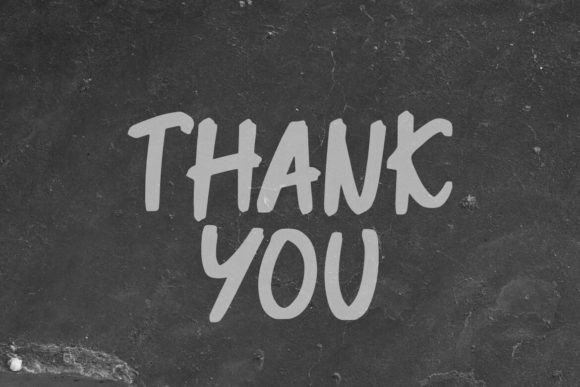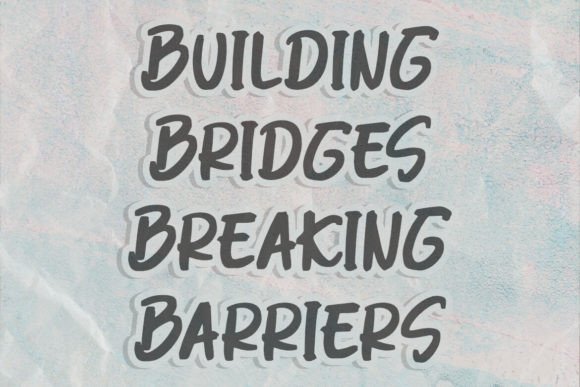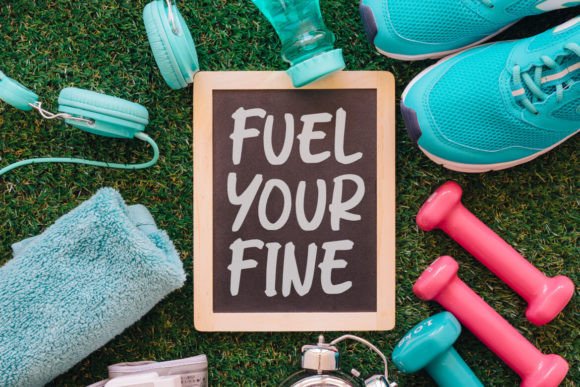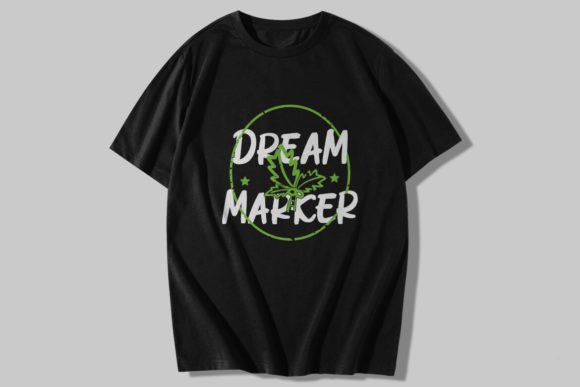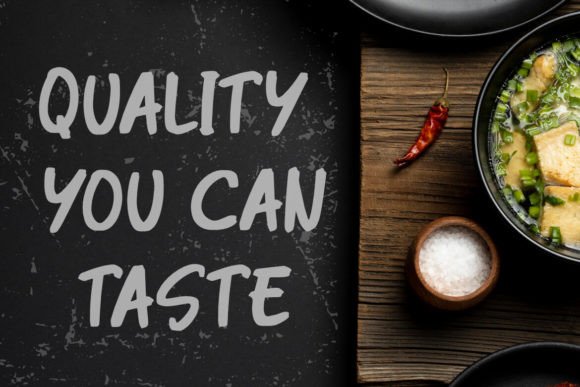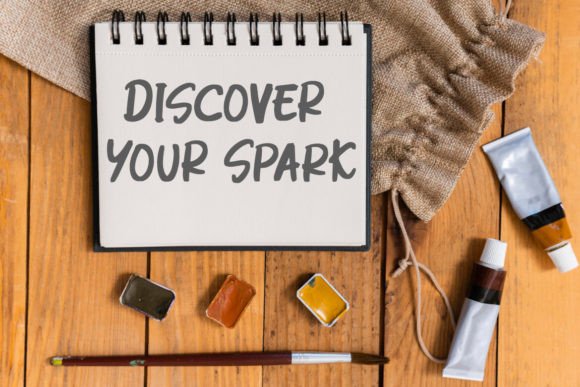
Introduction to Break Marker Font
**Break Marker – Brush Marker Font**, This font is made with a high premium quality level which you can use as flyers, quotes, posters, banners, packaging, merchandise, logotypes and much more.
Key Features of Break Marker Font
Break Marker Font offers exceptional quality and versatility, making it a valuable addition to your design toolkit. Whether you’re creating for personal projects or commercial use, Break Marker Font delivers professional results.